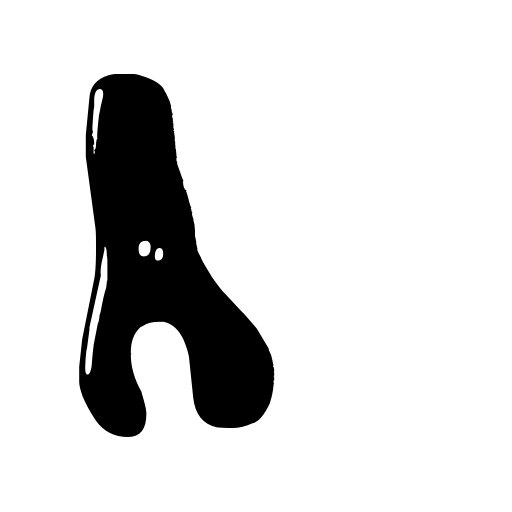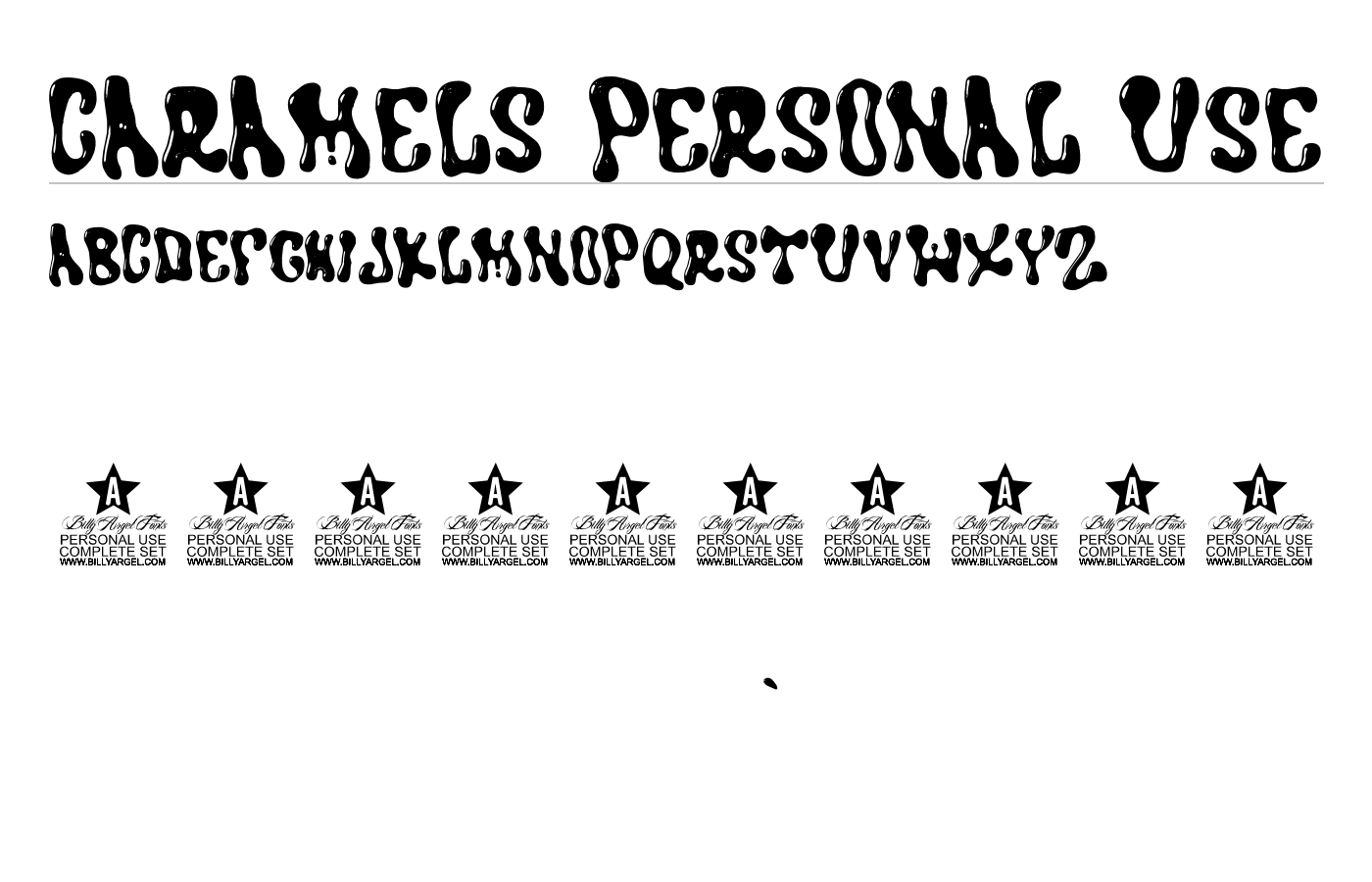
Caramels Personal Use is a bold, playful display font with a unique, gooey texture that gives each letter a dripping, organic feel. Its quirky, uneven shapes and strong visual presence make it perfect for eye-catching headlines, posters, and branding where a fun, unconventional vibe is desired. This font works best in creative, casual contexts where a lively, distinctive personality is key.
CARAMELS PERSONAL USE Font
About CARAMELS PERSONAL USE Font
| Font family | CARAMELS PERSONAL USE Font |